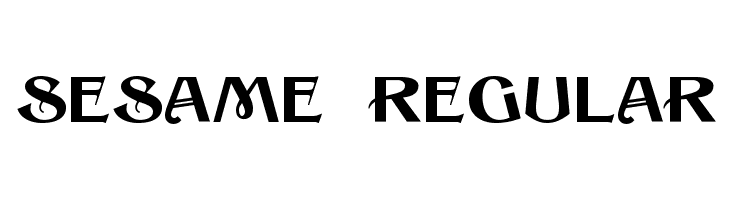
( Fonts by Dieter Steffmann )
A bold, decorative font with playful curves and flourishes.
( Fonts by Dieter Steffmann )
Bold, playful font with a distinctive shadow effect for a three-dimensional look.
( Fonts by Nick Curtis - www.nicksfonts.com )
A bold, artistic font with unique and decorative letterforms.
( Fonts by Nick Curtis - www.nicksfonts.com )
A bold, high-contrast font with unique geometric and organic shapes.